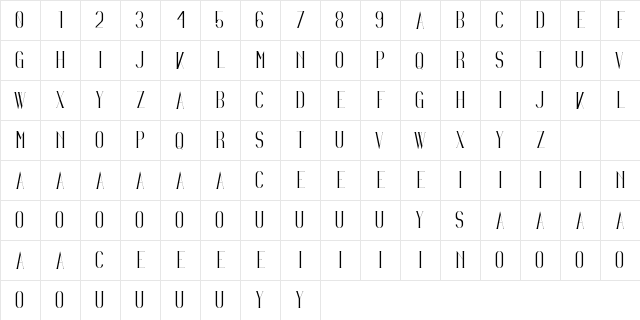
Irina Regular
Design Context for Irina Typeface
Irina offers clean, dependable letterforms without strong stylistic allegiance, making it a practical choice for designers who need flexibility.